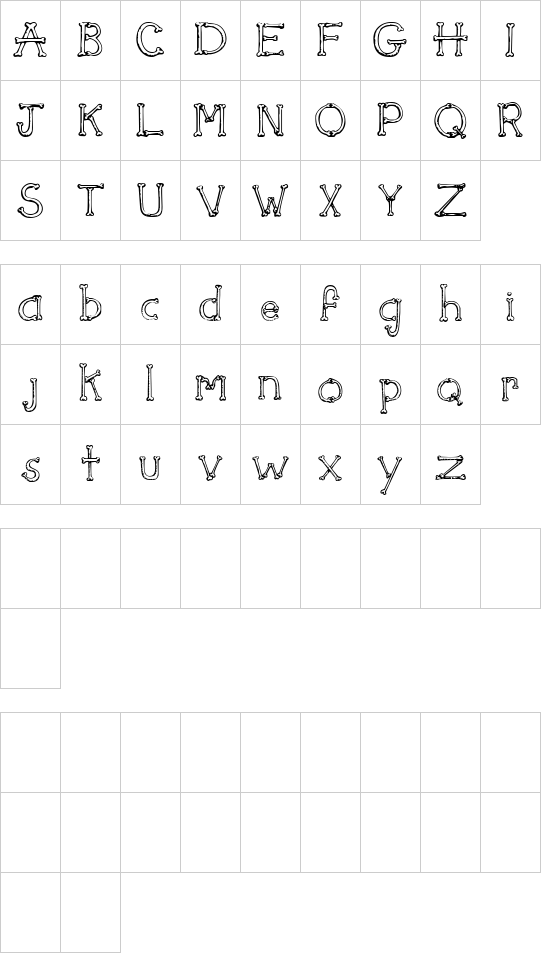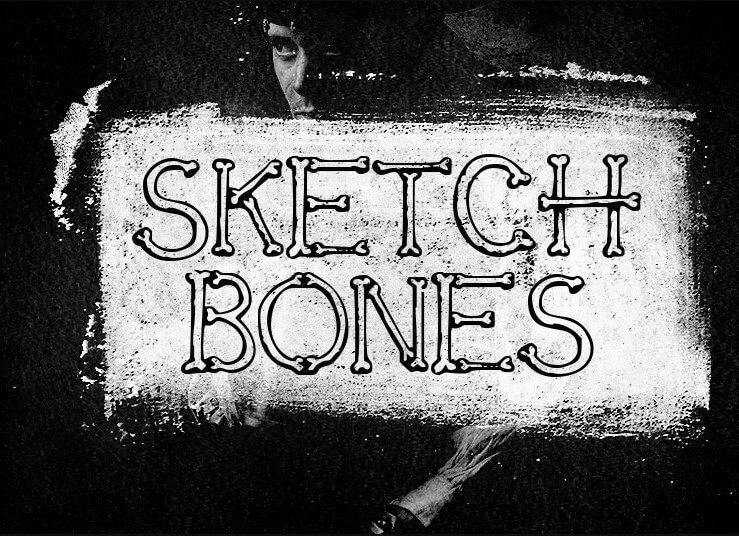
Sketch Bones Font . Every font is free to download! Looking for bones skeleton fonts? ️ this font has been downloaded 100+ times. Font created by character, based on awesome alphabets by mike artell, 1999. Please use the pulldown menu to view different character maps contained in this font. This boney font can be used in children’s movie titles, game names,. Click to find the best 34 free fonts in the bones skeleton style. Free download of sketch bones font. The typeface contains 1 file and supports 12 languages. Sketchbones font belongs to regular subfamily. Download and install the sketchbones font for free from ffonts.net. A great choice for highlighting your design elements. Click now to create a custom. Sketch bones font free download. With a hollow and boney look, sketch bones brings a punky vibe to your texts.
Sketch Bones Font Click now to create a custom. A great choice for highlighting your design elements. Sketchbones font belongs to regular subfamily. This boney font can be used in children’s movie titles, game names,. Font created by character, based on awesome alphabets by mike artell, 1999. With a hollow and boney look, sketch bones brings a punky vibe to your texts. Every font is free to download! Click now to create a custom. The typeface contains 1 file and supports 12 languages. Click to find the best 34 free fonts in the bones skeleton style. Sketch bones font free download. Free download of sketch bones font. Please use the pulldown menu to view different character maps contained in this font. Download and install the sketchbones font for free from ffonts.net. Looking for bones skeleton fonts? ️ this font has been downloaded 100+ times.